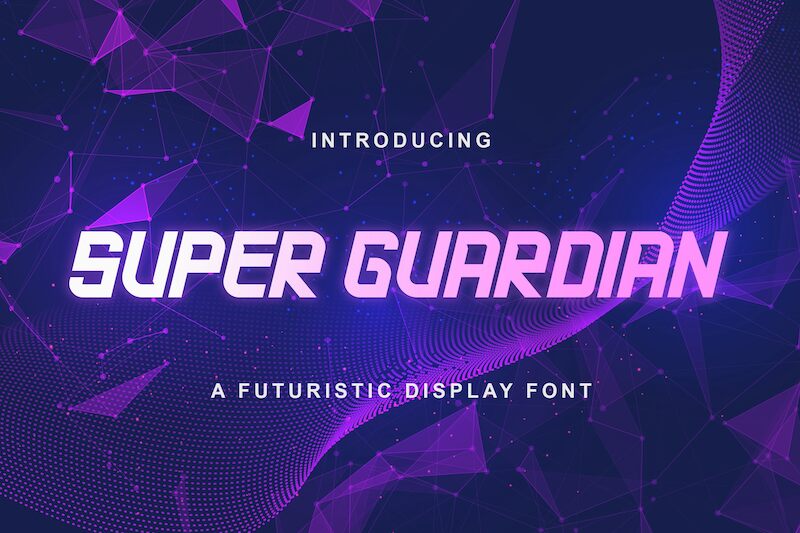
Super Guardian
Super Guardian font by StringLabs Creative Studio is a techno display font that comes with futuristic and bold geometric appearances. Each glyph acts as a puzzle piece within this strict exciting typeface that values strong presence, straight angles, and horizontal attitudes reminiscent of 90s technology sci-fi style. Constancy in design makes it even more impactful in full-text pieces.
Free for use, Super Guardian works particularly well within headlines of posters and album covers. Logos, themes for websites or apps, typography artwork, social media content posts or ads, event invitations; aesthetic magazines; branding projects – make sure to always give credit!